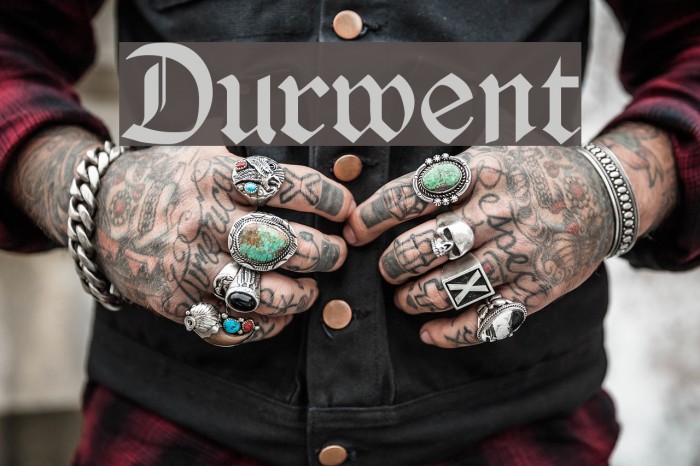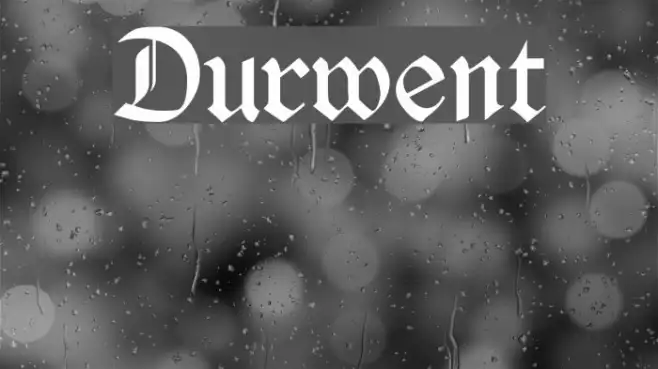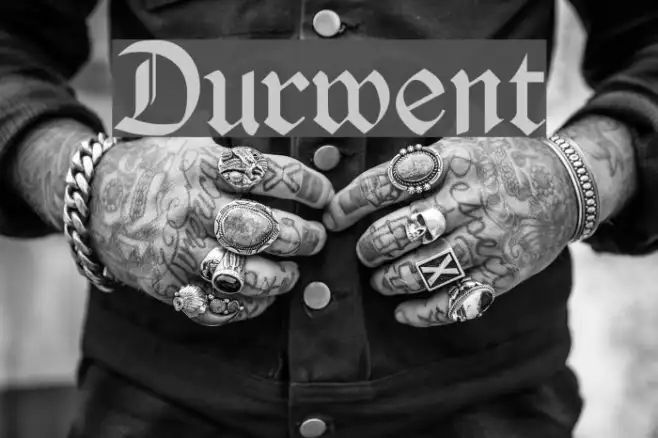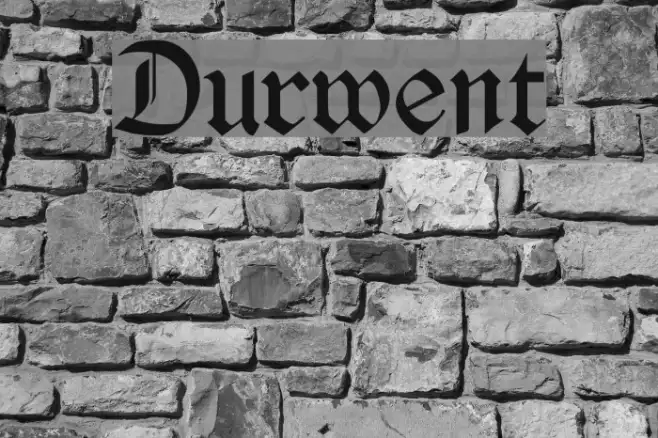
Durwent Font
This font exhibits a classic blackletter style, characterized by its ornate and intricate letterforms. The uppercase letters feature sharp, angular strokes with dramatic flourishes, while the lowercase letters maintain a consistent gothic aesthetic. The numerals are bold and distinct, complementing the overall medieval feel. Special characters are designed with the same attention to detail, enhancing the font's decorative appeal. This typeface is reminiscent of traditional calligraphy, often associated with historical and formal contexts.
A classic blackletter font with ornate, gothic letterforms.
- Proposed Projects: Ideal for historical documents, certificates, wedding invitations, or any project requiring a medieval or formal aesthetic.
- Category: Blackletter
- Overall Style: Vintage
- Use Case: Headlines, Logos, Decorative text